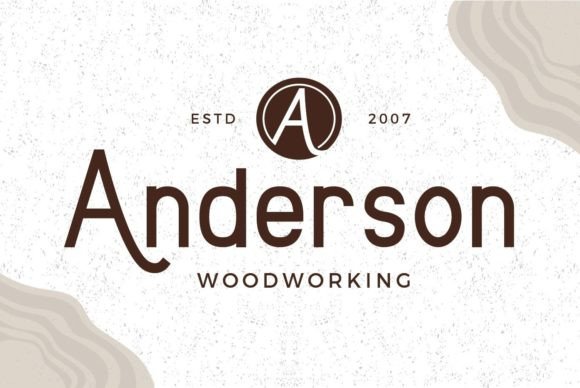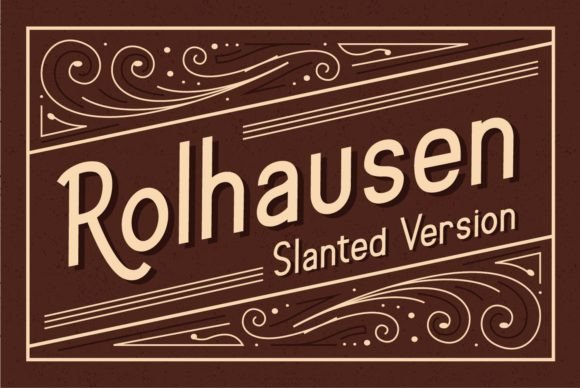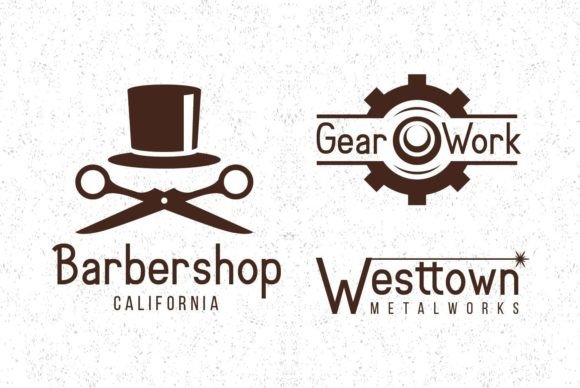
Introduction to Rolhausen Font
Rolhausen is a delicate and well-rounded sans serif font, perfect for crafty projects that need authentic typography.
Use it for wedding invitations, birthday cards, personal branding, and elegant logos, and your designs will stand out .
Rolhausen Font offers exceptional quality and versatility, making it a valuable addition to your design toolkit. Whether you’re creating for personal projects or commercial use, Rolhausen Font delivers professional results.